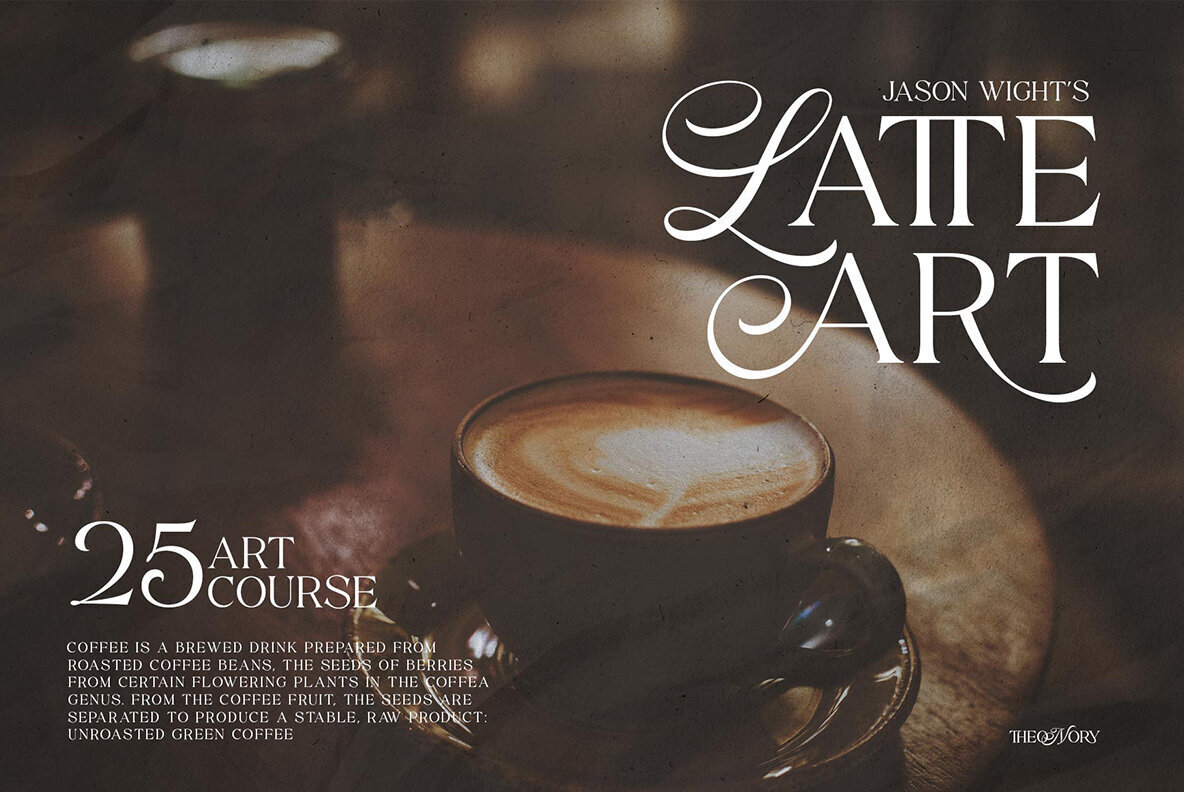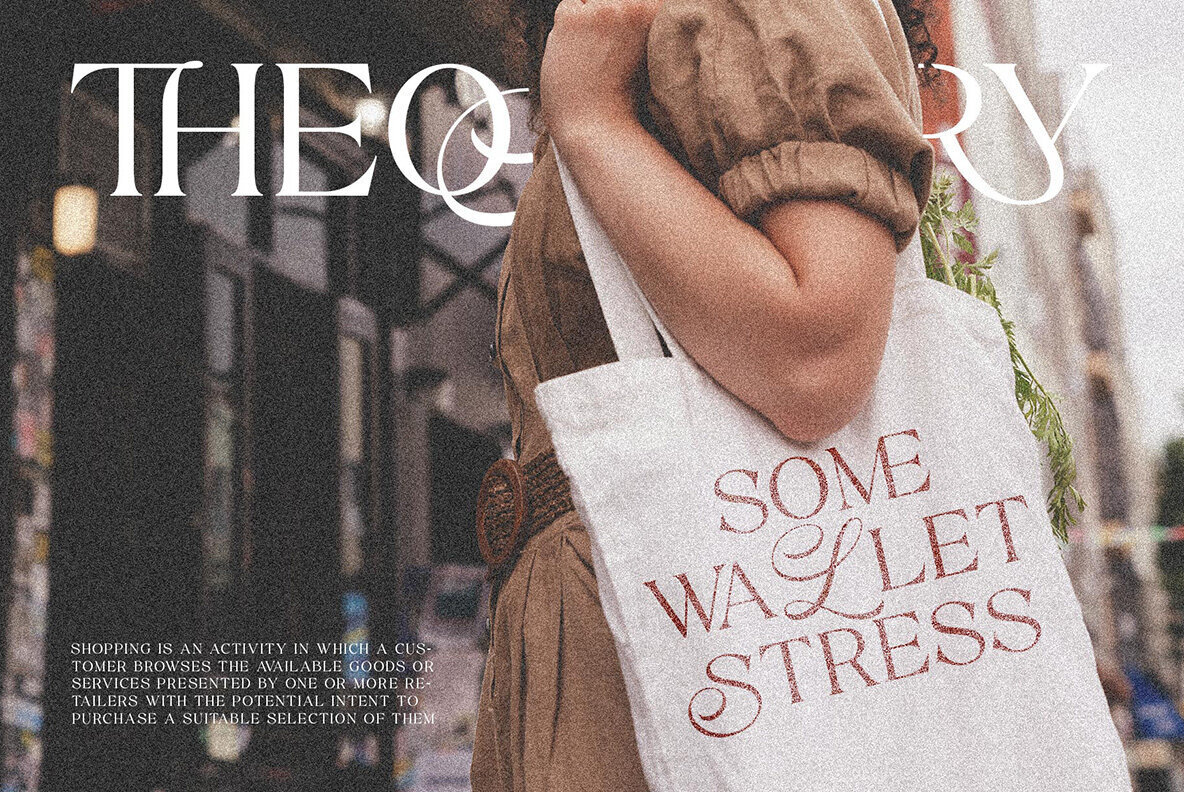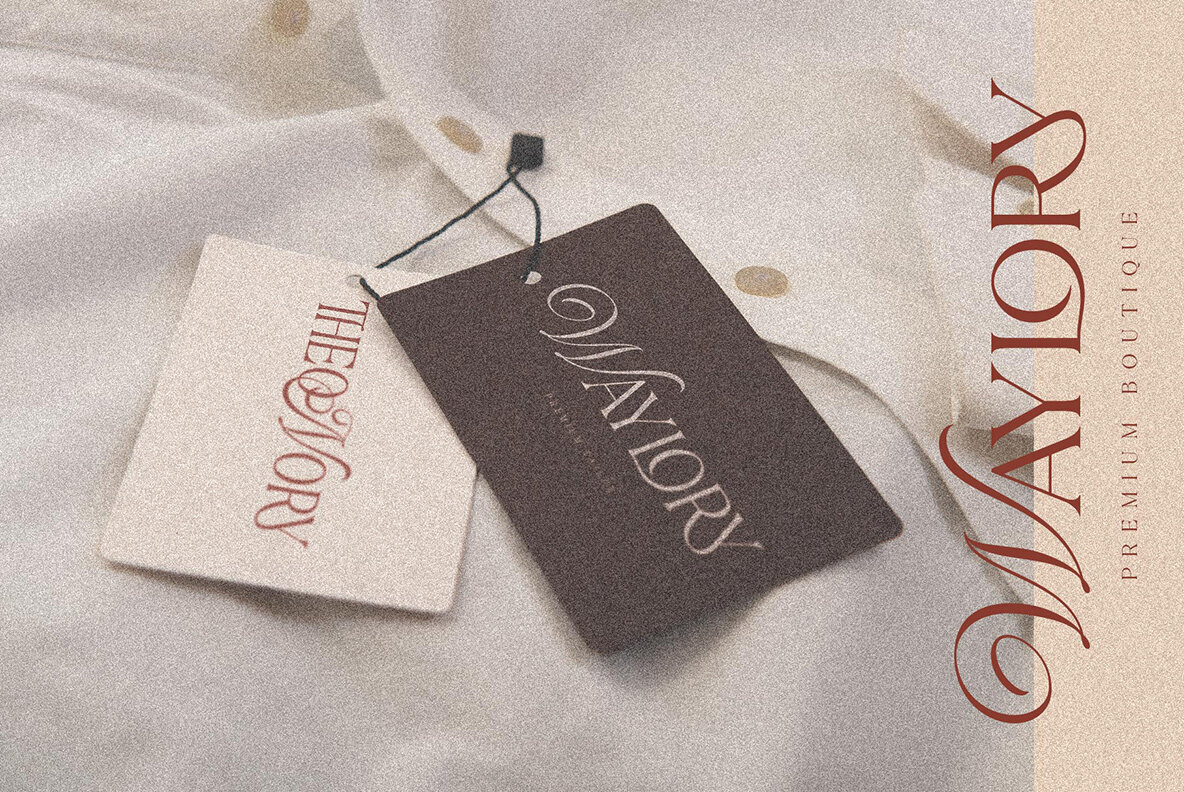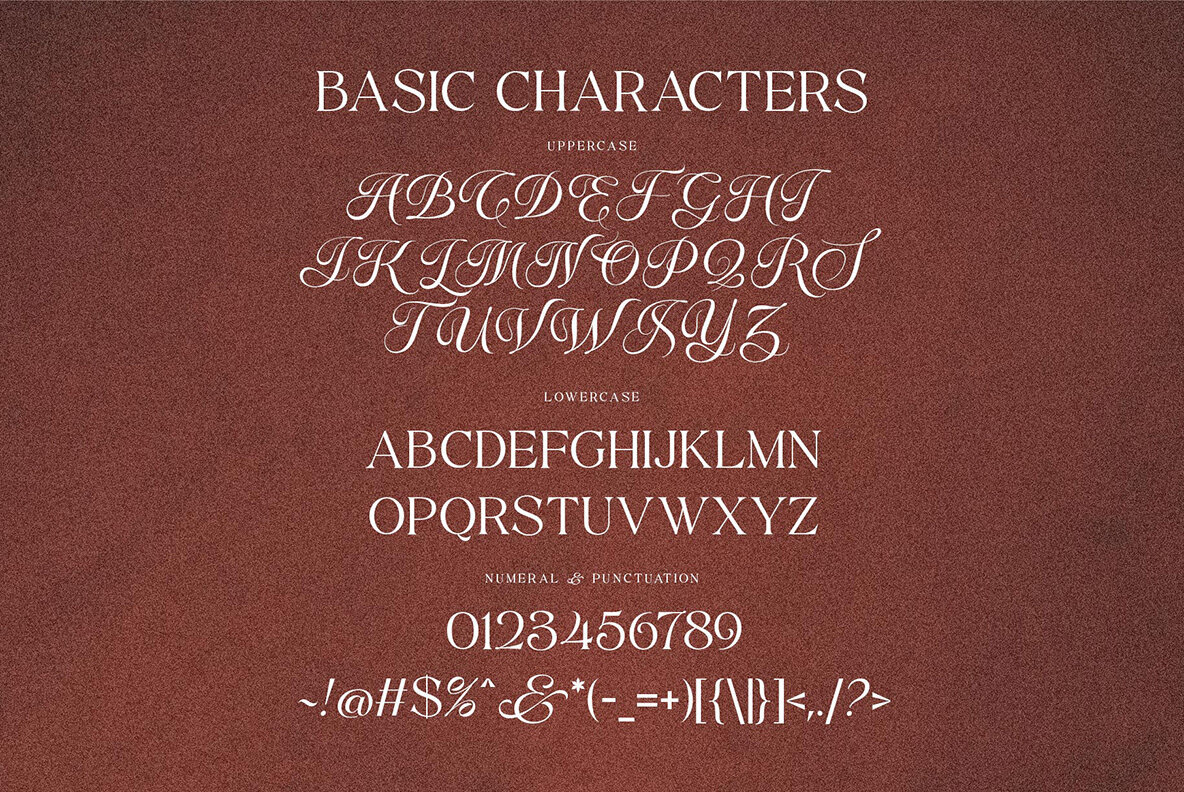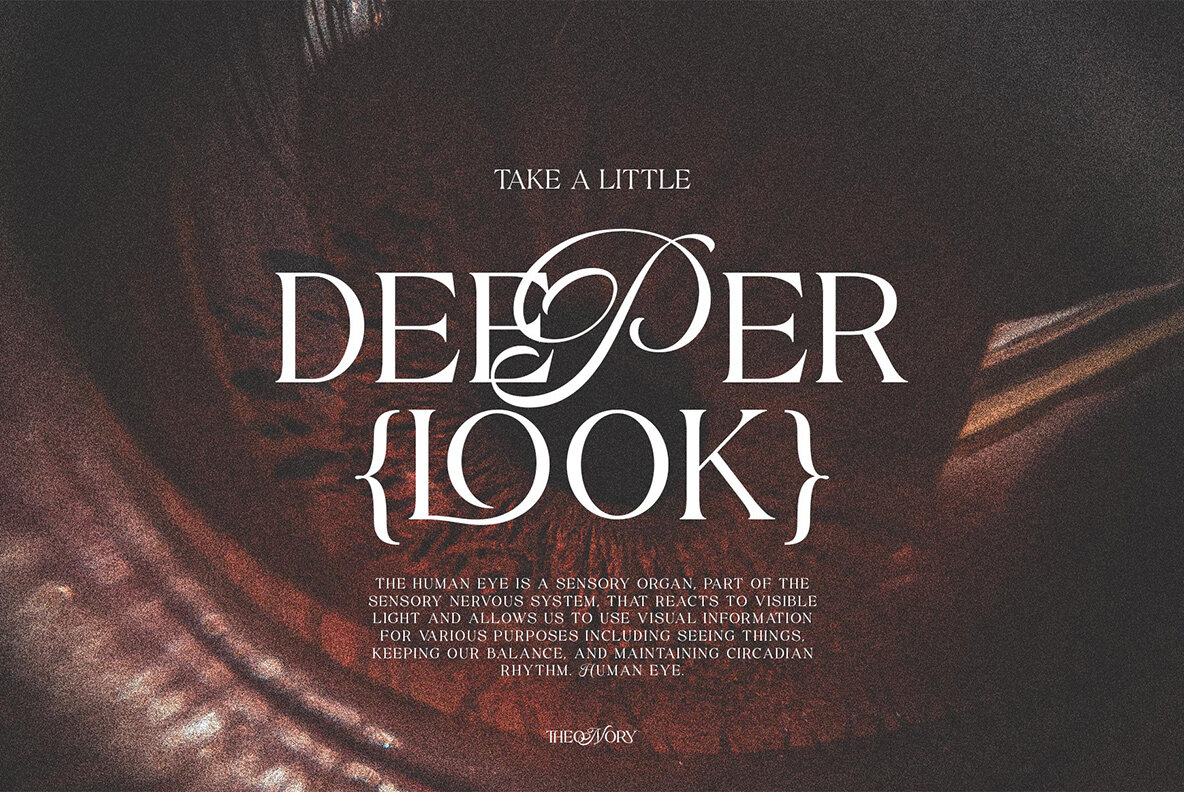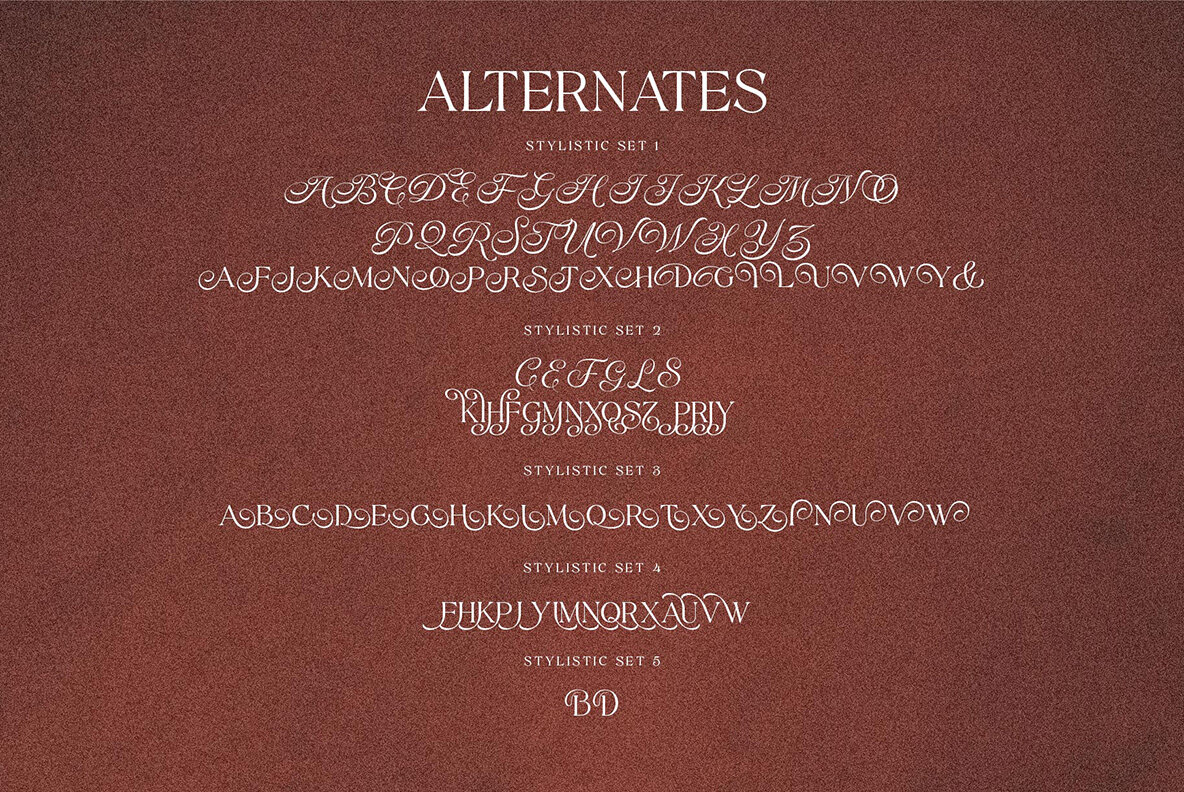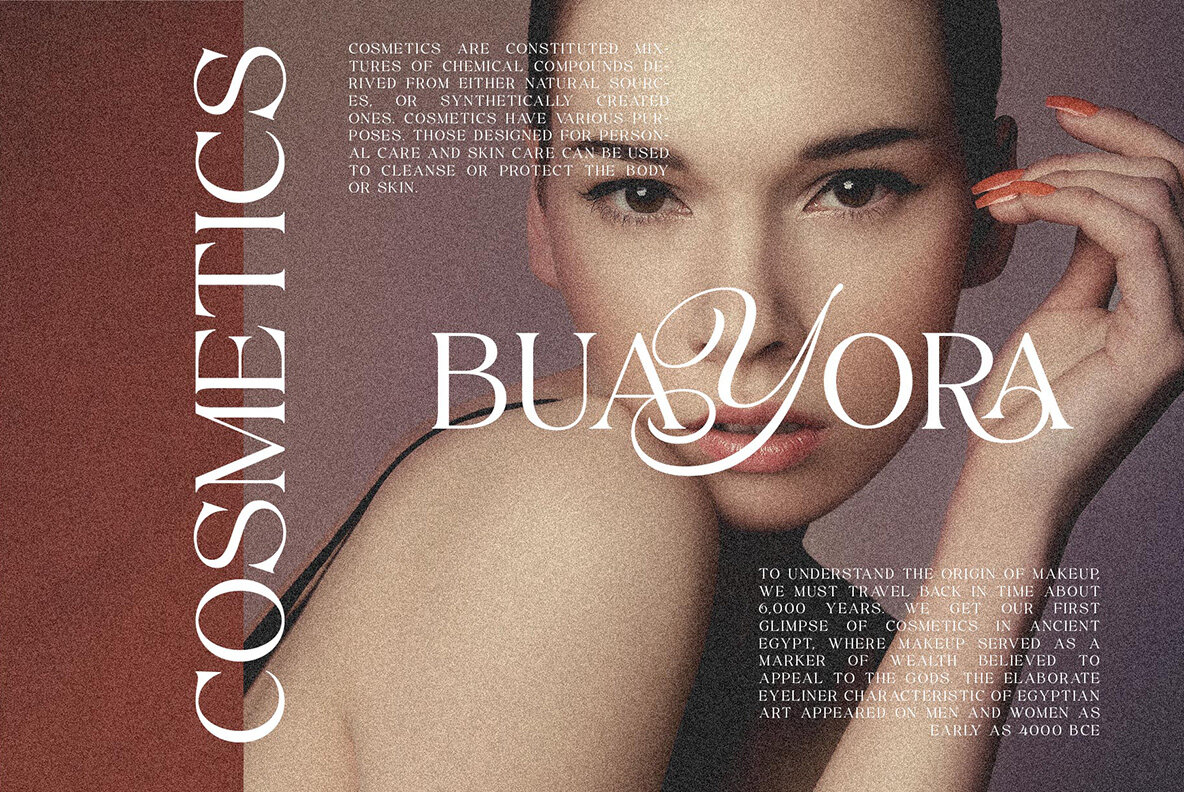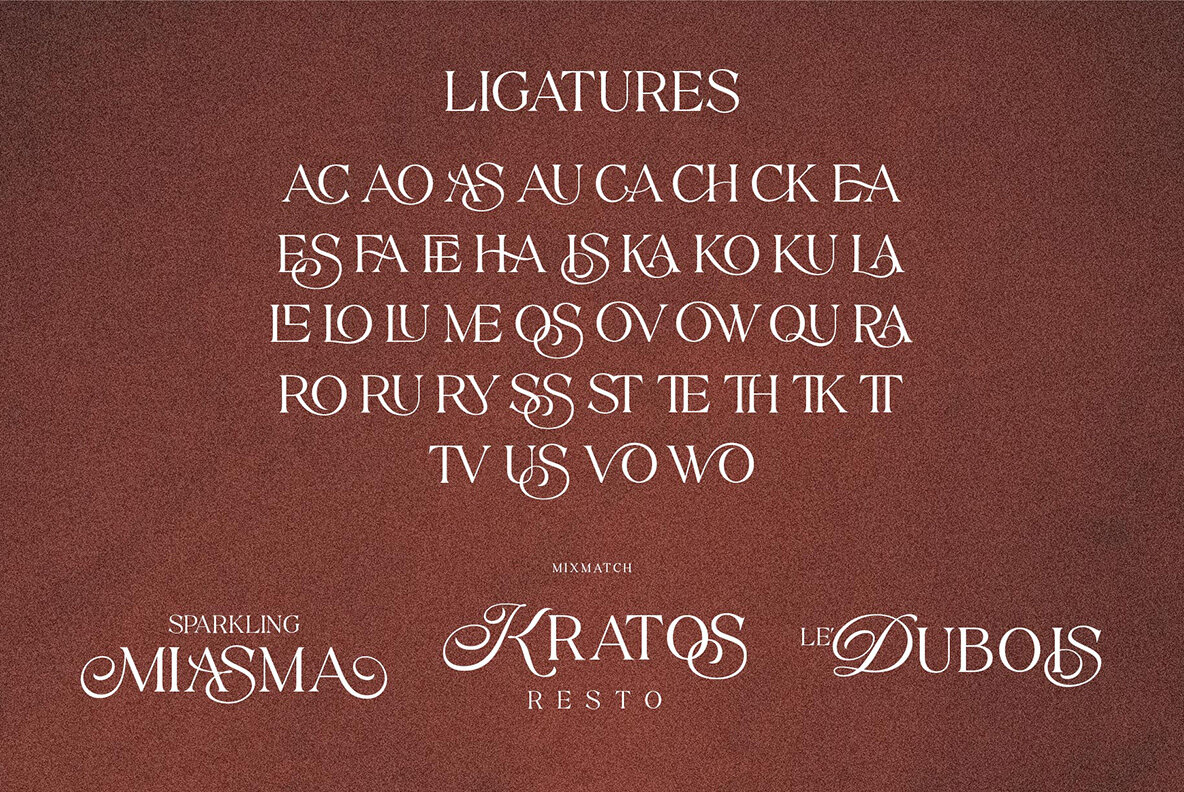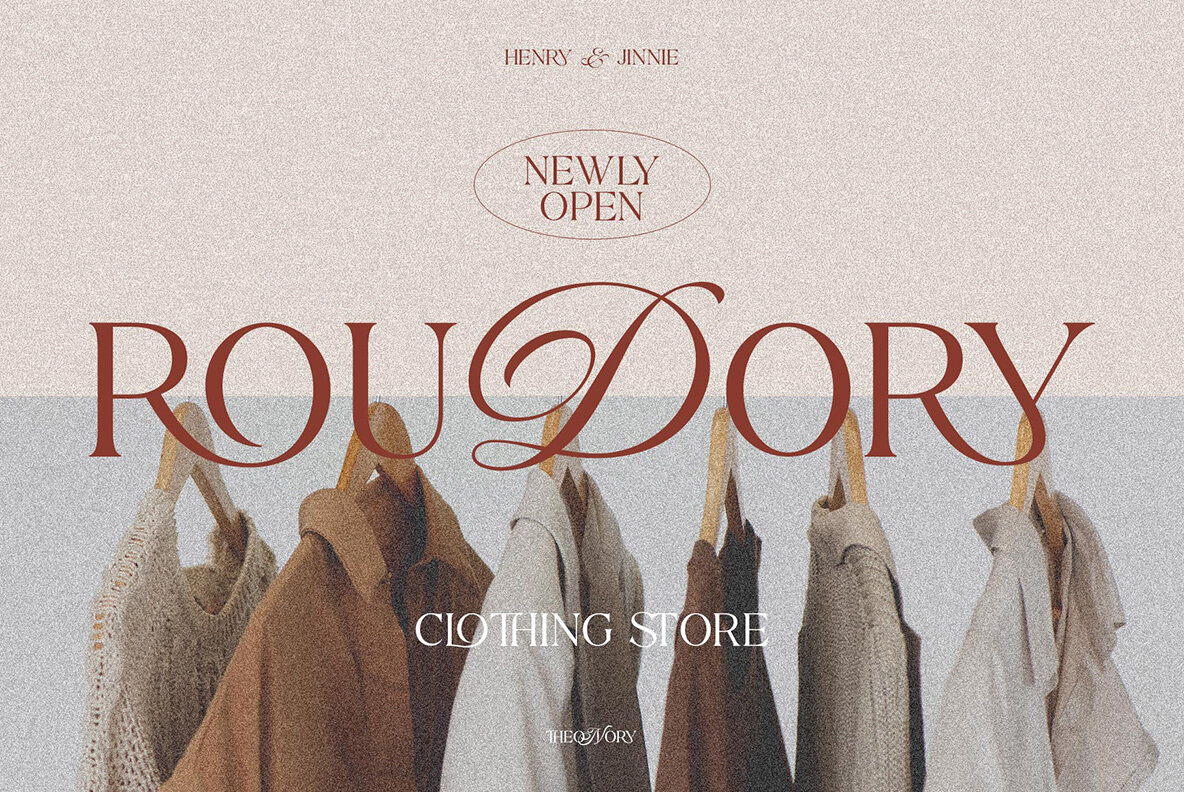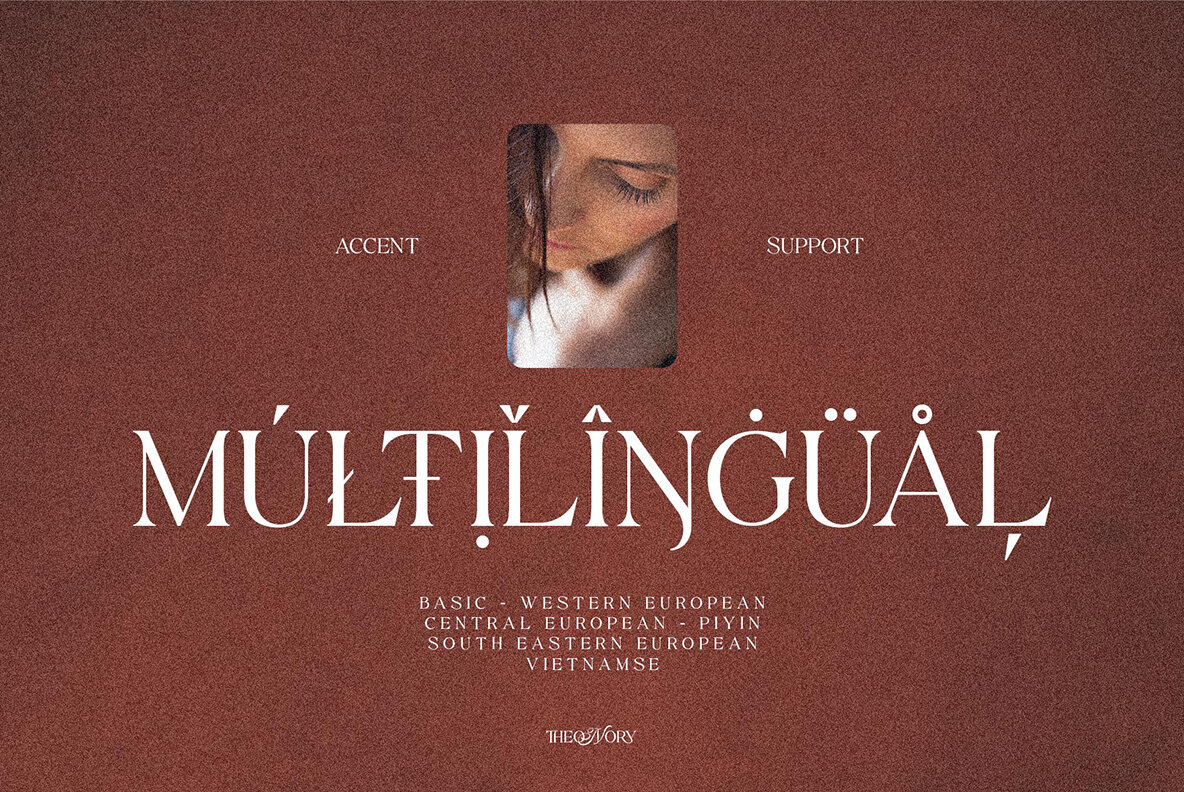
Theonory Font
Theonory Regular
Theonory offers a harmonious blend of elegant script and simple serif styles, creating a unique font that stands out in any collection. Its modern serif style is complemented by script-style letters, making it an excellent choice for projects that demand a distinctive and sophisticated look. This font is particularly well-suited for magazine covers, brochures, flyers, Instagram ads, and Canva designs, where a modern and unique aesthetic is essential. With Theonory, crafting visually appealing designs is effortless, whether using design software or simpler tools, thanks to its comprehensive Unicode (PUA) support. Features:Theonory: The Union of Elegance and Simplicity
Enjoy the versatile and unique characteristics of Theonory, tailor-made for striking design projects.